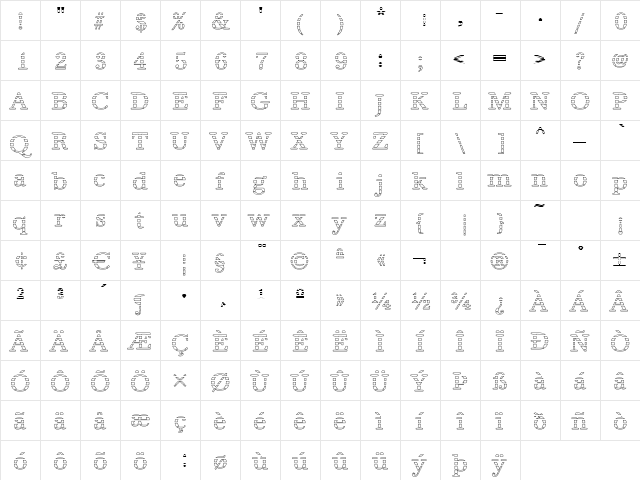
IrisBeckerGrado Regular
IrisBeckerGrado is a composed and adaptable typeface that performs quietly and consistently across a wide range of design contexts.